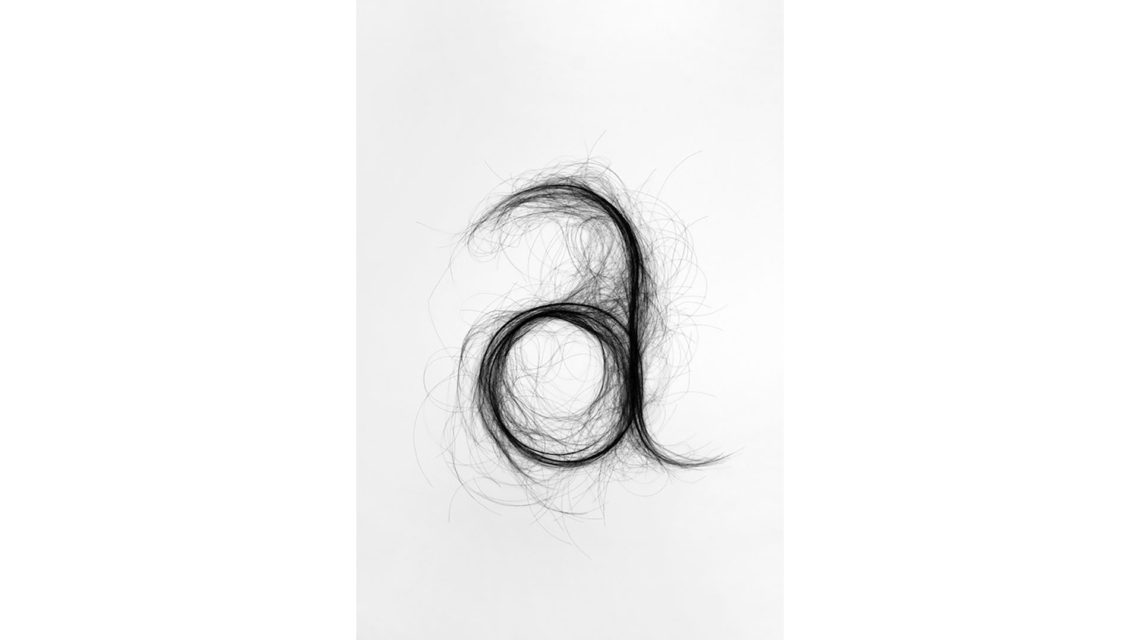
Kind of disgusting, but cool.
An Eccentric, Wacky Typeface Created With Hair
Amsterdam-based designer Monique Goossens has recently created a fun and wacky typeface out of human hair.
This interesting typeface is constructed out of strands of hair gathered together. Each clump of hair is shaped to form a letter in the alphabet.
Goossens’ work is playful, surprising and turns something mundane into something creative.